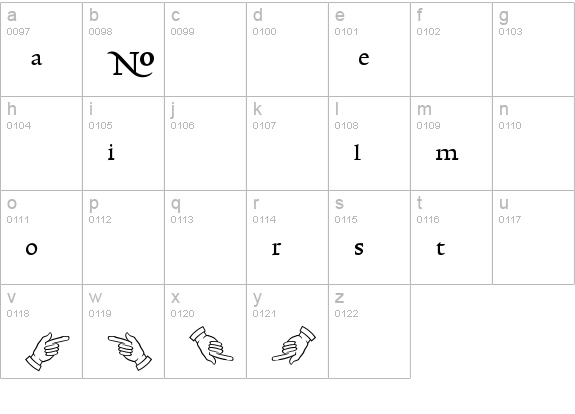
TriniteNo3-RomanWidePi font is a captivating typographic masterpiece that combines elegance, sophistication, and a touch of modernity. Its wide, Roman-inspired letterforms exude a timeless charm, making it the perfect choice for projects that require a classic yet contemporary feel. This font strikes the perfect balance between legibility and visual impact, making it ideal for a wide range of design applications. Whether you're creating eye-catching headlines, elegant invitations, or stylish branding materials, TriniteNo3-RomanWidePi font will effortlessly elevate your designs to new heights. With its clean lines and well-defined shapes, TriniteNo3-RomanWidePi font offers exceptional readability across various mediums. Its generous letter spacing ensures optimal legibility, while its bold strokes add a confident and authoritative touch to any design. One of the most remarkable features of TriniteNo3-RomanWidePi font is its versatility. Its timeless design makes it suitable for both formal and informal contexts, allowing you to easily adapt it to your specific design needs. Whether you're working on a corporate presentation, a wedding invitation, or a creative advertisement, this font will add a touch of sophistication and professionalism to your project. The best part? TriniteNo3-RomanWidePi font is available for free download at FontsMarket.com. This means that you can enjoy the beauty and versatility of this font without any cost. Simply visit FontsMarket.com, search for TriniteNo3-RomanWidePi font, and start using it in your designs right away. In conclusion, TriniteNo3-RomanWidePi font is a captivating and versatile typeface that will bring a touch of elegance and sophistication to your designs. Its timeless design, exceptional readability, and free availability make it a must-have for any designer looking to create visually stunning and impactful projects. Download TriniteNo3-RomanWidePi font today and let your creativity soar.